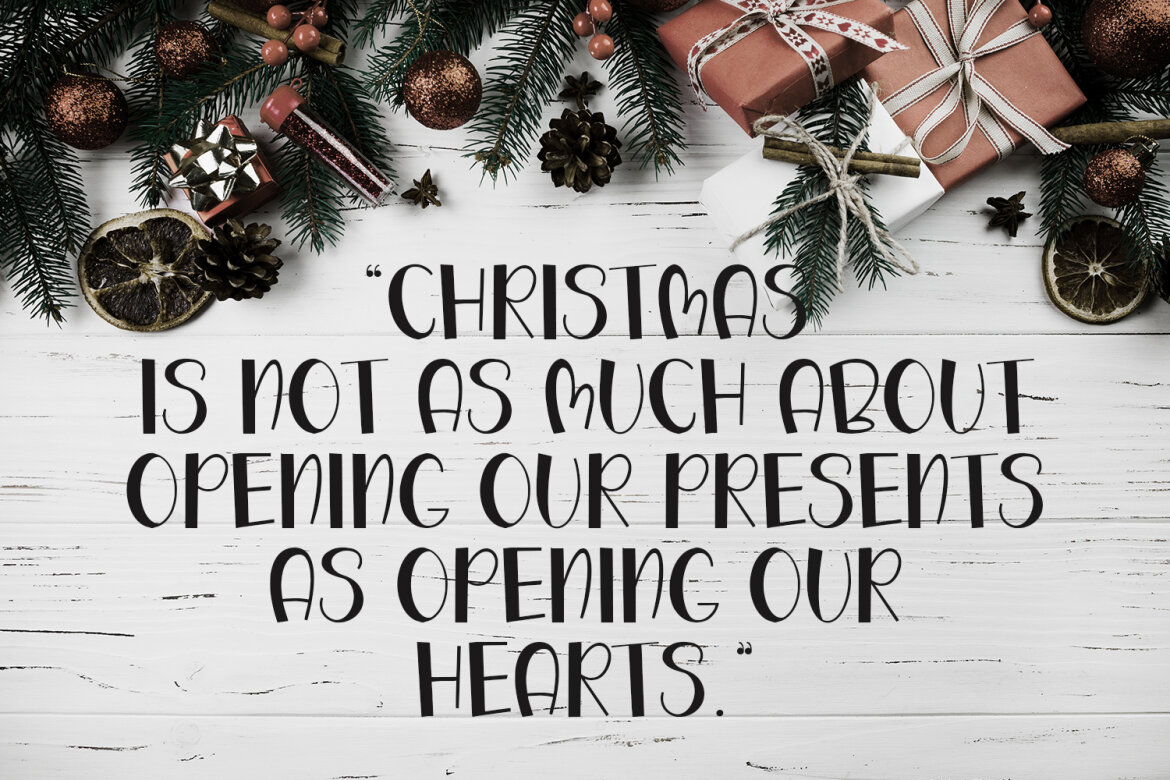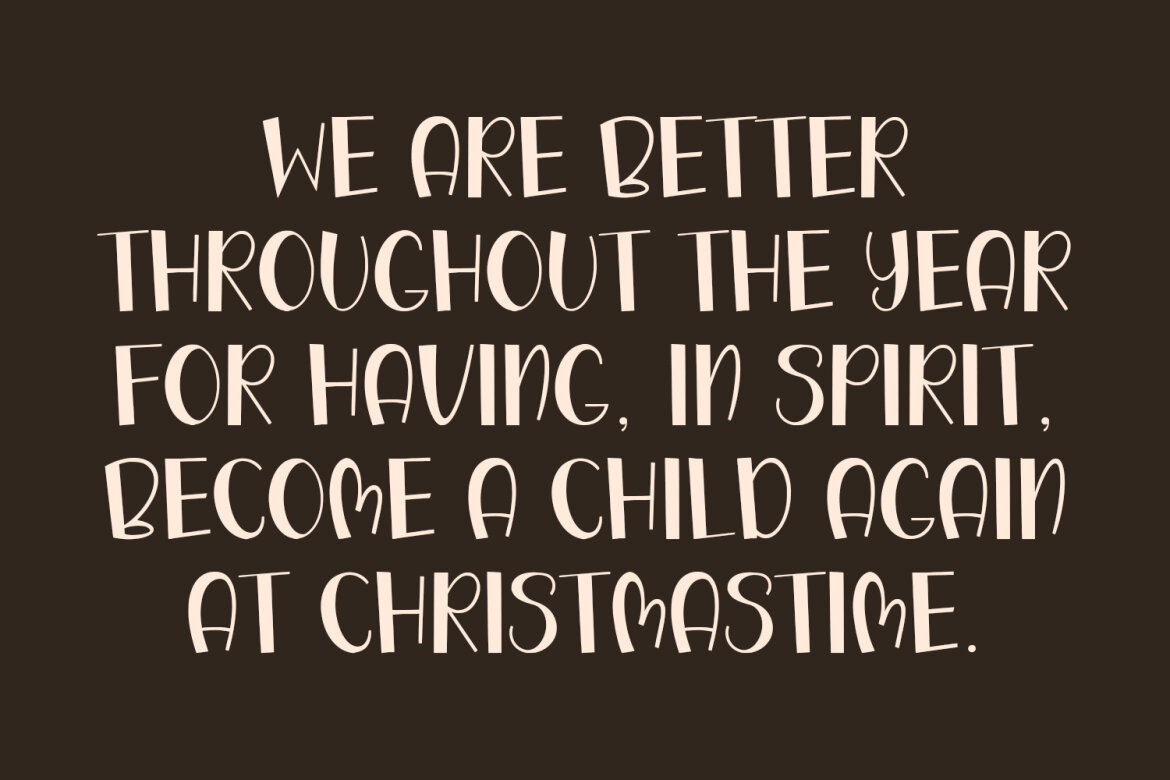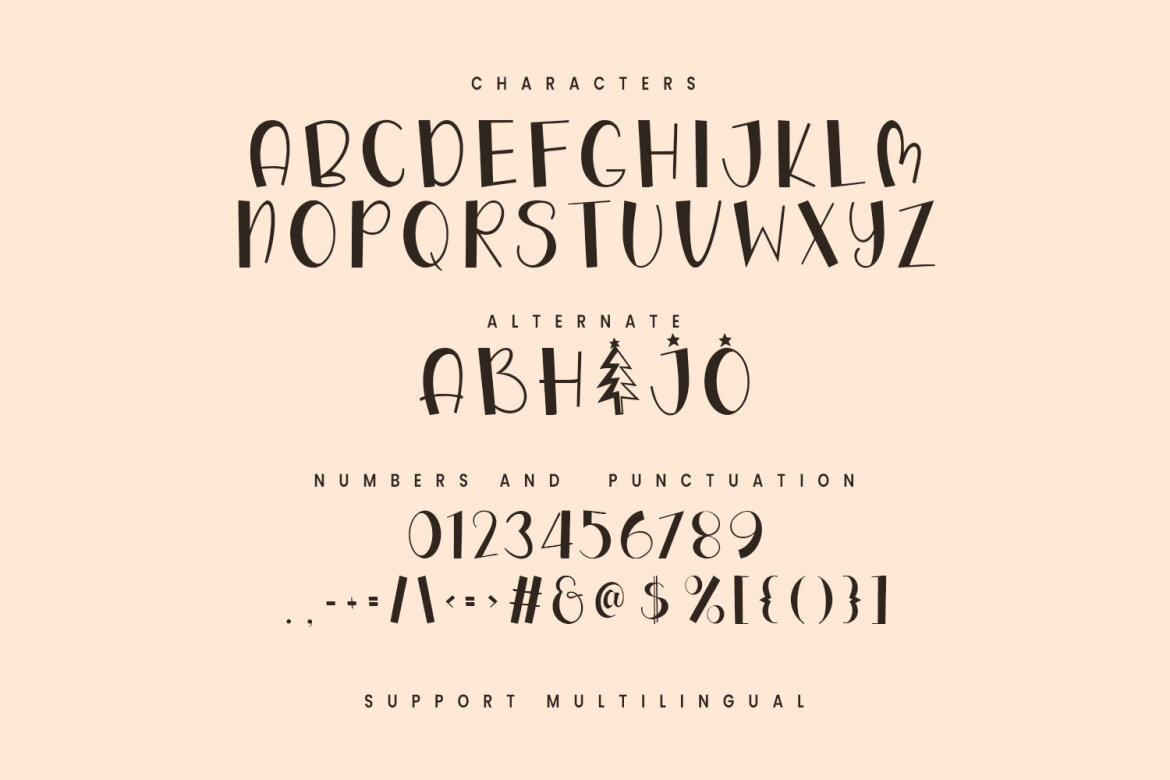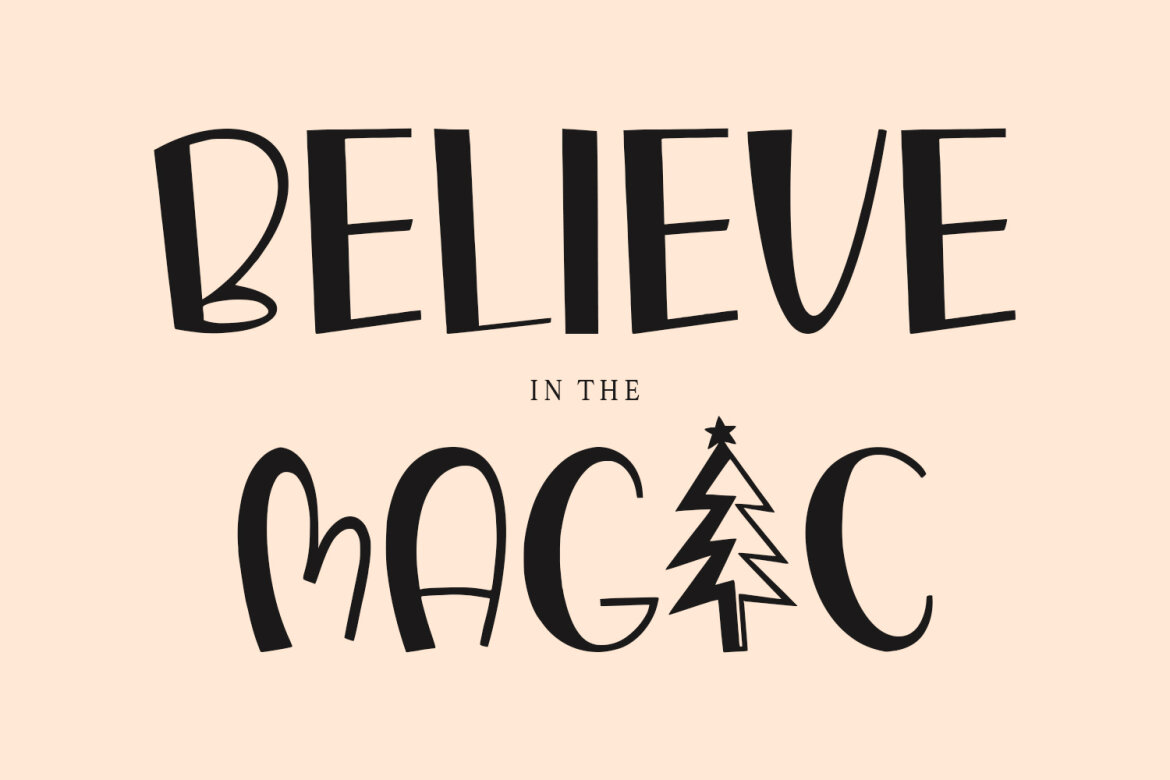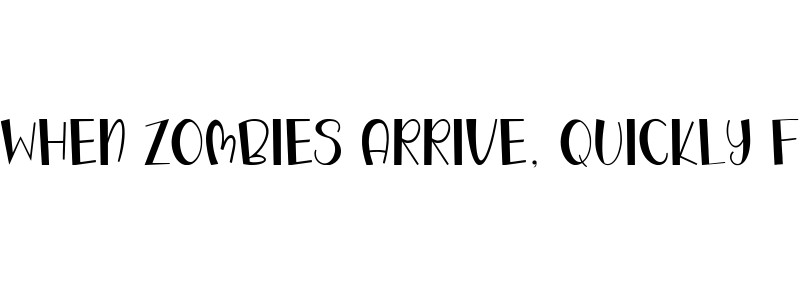
Crishnight Cute Christmas FREE Font
Crishnight
Crishnight is a christmas cute display font. With bold happy stroke, Upright and fun character. To give you an extra creative work. Crishnight font support multilingual language. This font is good for logo design, Social media, Movie Titles, Books Titles, a short text even a long text letter and good for your secondary text font with Script. Make a stunning work with Crishnight font.